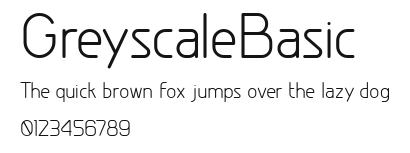
GreyscaleBasic Preview
• Font Name: GreyscaleBasic
• Full Font Name: GreyscaleBasic
• Designer: Greyscale
• Manufacturer: GreyscaleNet
About GreyscaleBasic.ttf
GreyscaleBasic.ttf is a modern, elegant sans-serif font designed for ultimate readability and visual harmony. Perfect for branding, headlines, web design, and print materials.